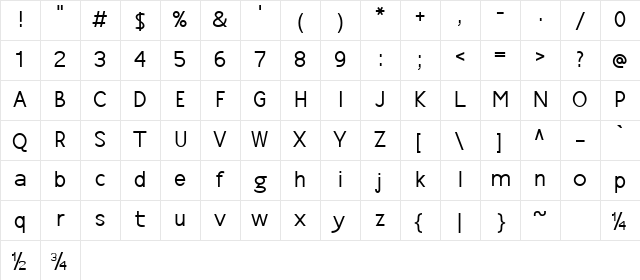
Midnight Demo Regular
Design Context for Midnight Demo
Midnight Demo is a composed and adaptable typeface that performs quietly and consistently across a wide range of design contexts.